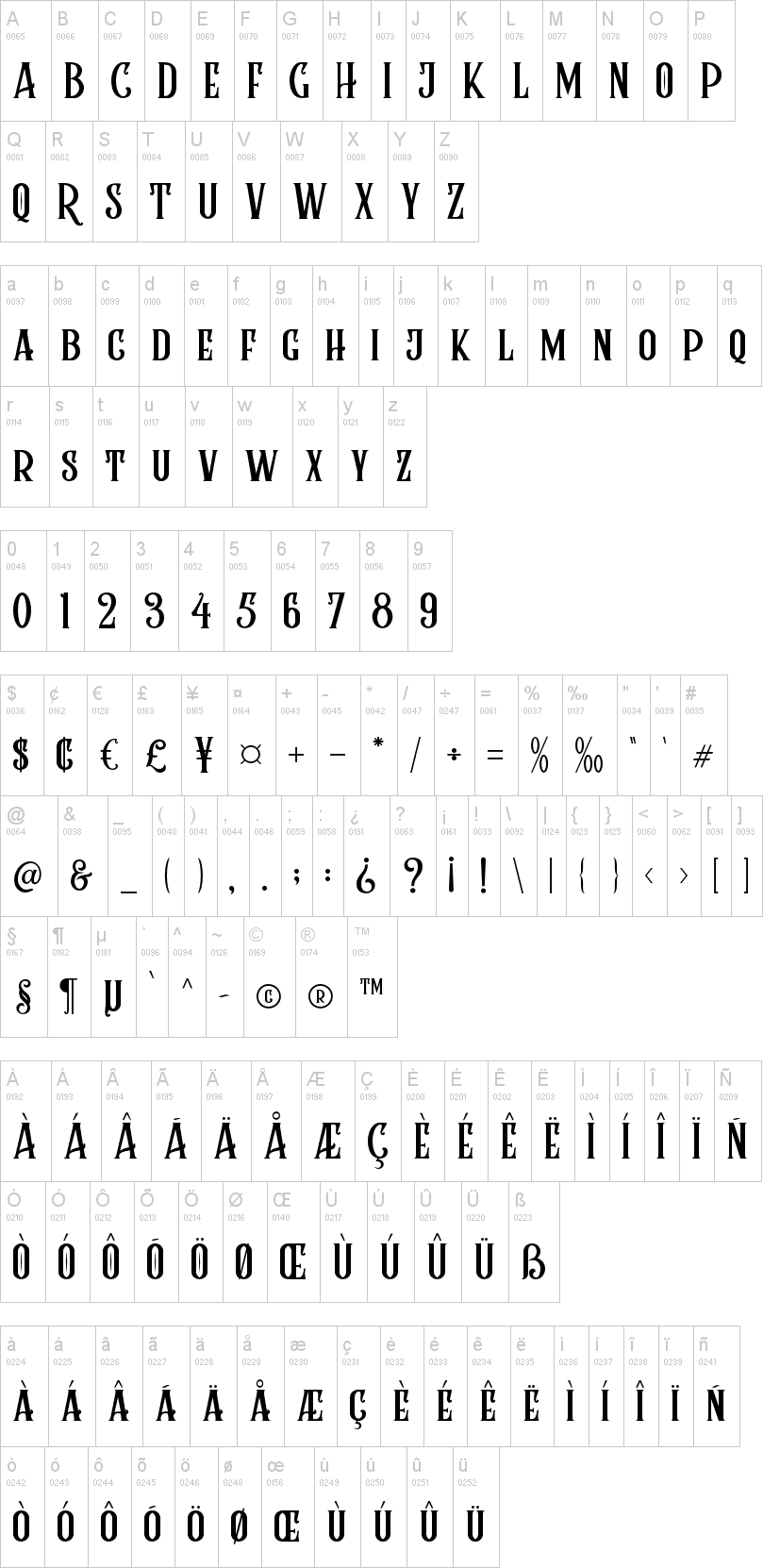
Rumble Brave Font
Rumble Brave Font - The font has 3 types of. Web rumble brave is a custom font by alit design that combines retro and vintage styles. It is free for personal use, but donations are. Web download the rumble brave font by alit design, a retro cool vintage lettering font with antique style.
Web download the rumble brave font by alit design, a retro cool vintage lettering font with antique style. Web rumble brave is a custom font by alit design that combines retro and vintage styles. The font has 3 types of. It is free for personal use, but donations are.
Web rumble brave is a custom font by alit design that combines retro and vintage styles. The font has 3 types of. It is free for personal use, but donations are. Web download the rumble brave font by alit design, a retro cool vintage lettering font with antique style.
Web download the rumble brave font by alit design, a retro cool vintage lettering font with antique style. The font has 3 types of. It is free for personal use, but donations are. Web rumble brave is a custom font by alit design that combines retro and vintage styles.
Web rumble brave is a custom font by alit design that combines retro and vintage styles. The font has 3 types of. Web download the rumble brave font by alit design, a retro cool vintage lettering font with antique style. It is free for personal use, but donations are.
Web download the rumble brave font by alit design, a retro cool vintage lettering font with antique style. It is free for personal use, but donations are. Web rumble brave is a custom font by alit design that combines retro and vintage styles. The font has 3 types of.
Web rumble brave is a custom font by alit design that combines retro and vintage styles. The font has 3 types of. Web download the rumble brave font by alit design, a retro cool vintage lettering font with antique style. It is free for personal use, but donations are.
Rumble Brave Font
Web rumble brave is a custom font by alit design that combines retro and vintage styles. It is free for personal use, but donations are. Web download the rumble brave font by alit design, a retro cool vintage lettering font with antique style. The font has 3 types of.
It is free for personal use, but donations are. Web download the rumble brave font by alit design, a retro cool vintage lettering font with antique style. The font has 3 types of. Web rumble brave is a custom font by alit design that combines retro and vintage styles.
Rumble Brave Display Font
Web rumble brave is a custom font by alit design that combines retro and vintage styles. It is free for personal use, but donations are. The font has 3 types of. Web download the rumble brave font by alit design, a retro cool vintage lettering font with antique style.
Rumble Brave Vintage Fonts by alit suar Font Bundles
Web rumble brave is a custom font by alit design that combines retro and vintage styles. The font has 3 types of. It is free for personal use, but donations are. Web download the rumble brave font by alit design, a retro cool vintage lettering font with antique style.
The Font Has 3 Types Of.
Web rumble brave is a custom font by alit design that combines retro and vintage styles. It is free for personal use, but donations are. Web download the rumble brave font by alit design, a retro cool vintage lettering font with antique style.